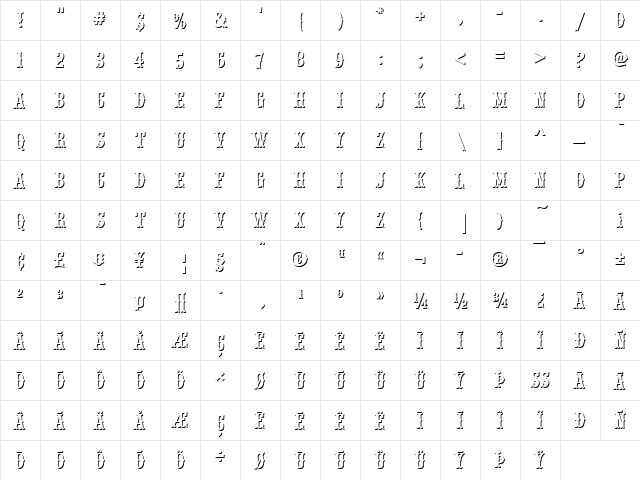
URWWoodTypOnlShaD Regular
Design Context for URWWoodTypOnlShaD Typeface
URWWoodTypOnlShaD taps into classic Western woodtype traditions — bold, characterful, and impossible to ignore.
Perfect for barbecue restaurants, country music branding, vintage poster design, and rustic packaging.
Font Pairing: Combine URWWoodTypOnlShaD with a simple slab or neutral sans — period-accurate companions reinforce the vintage feel without competing for attention.
Pro Tip: Pair URWWoodTypOnlShaD with aged textures or distressed backgrounds to amplify its vintage personality.